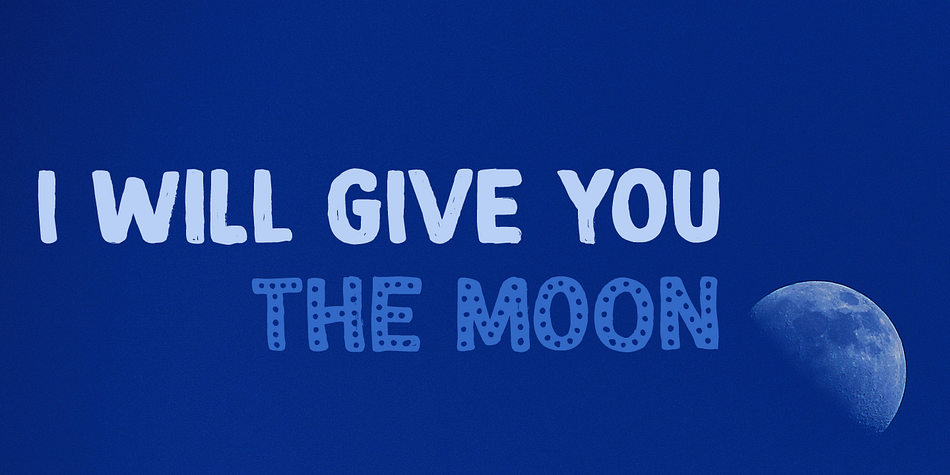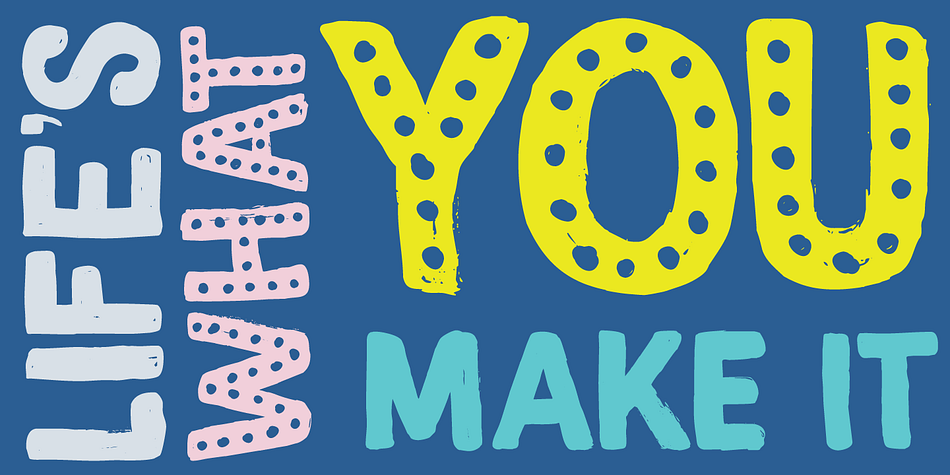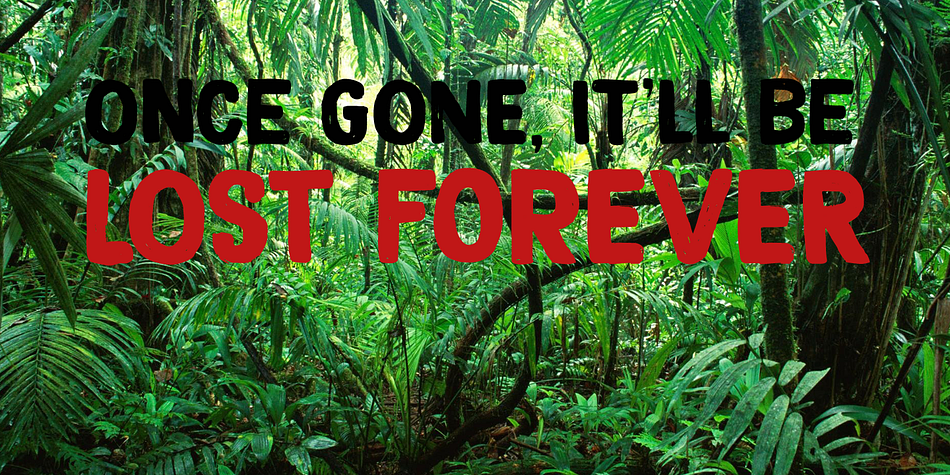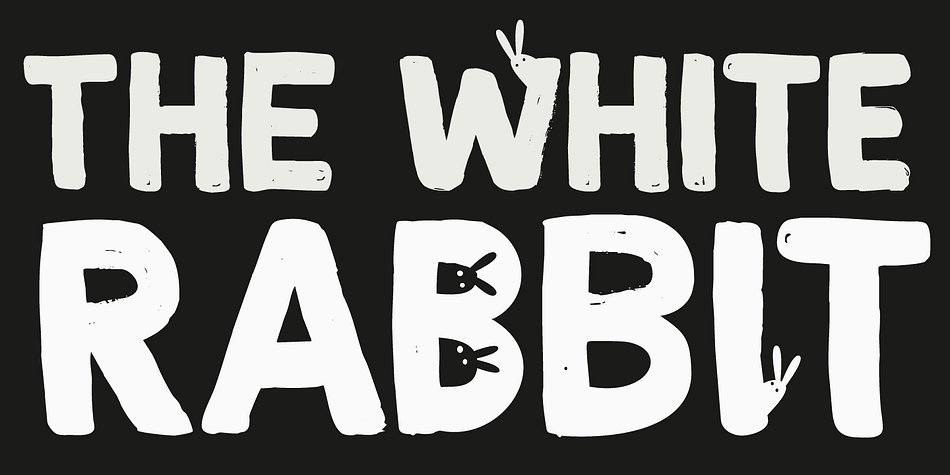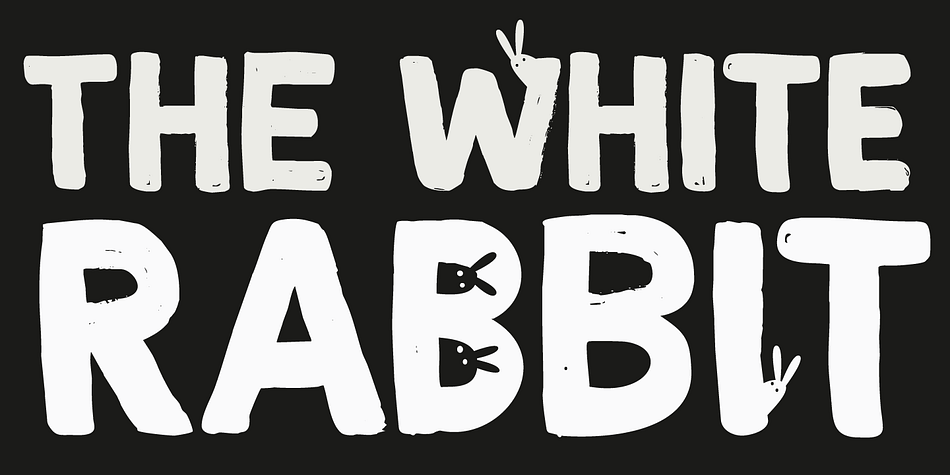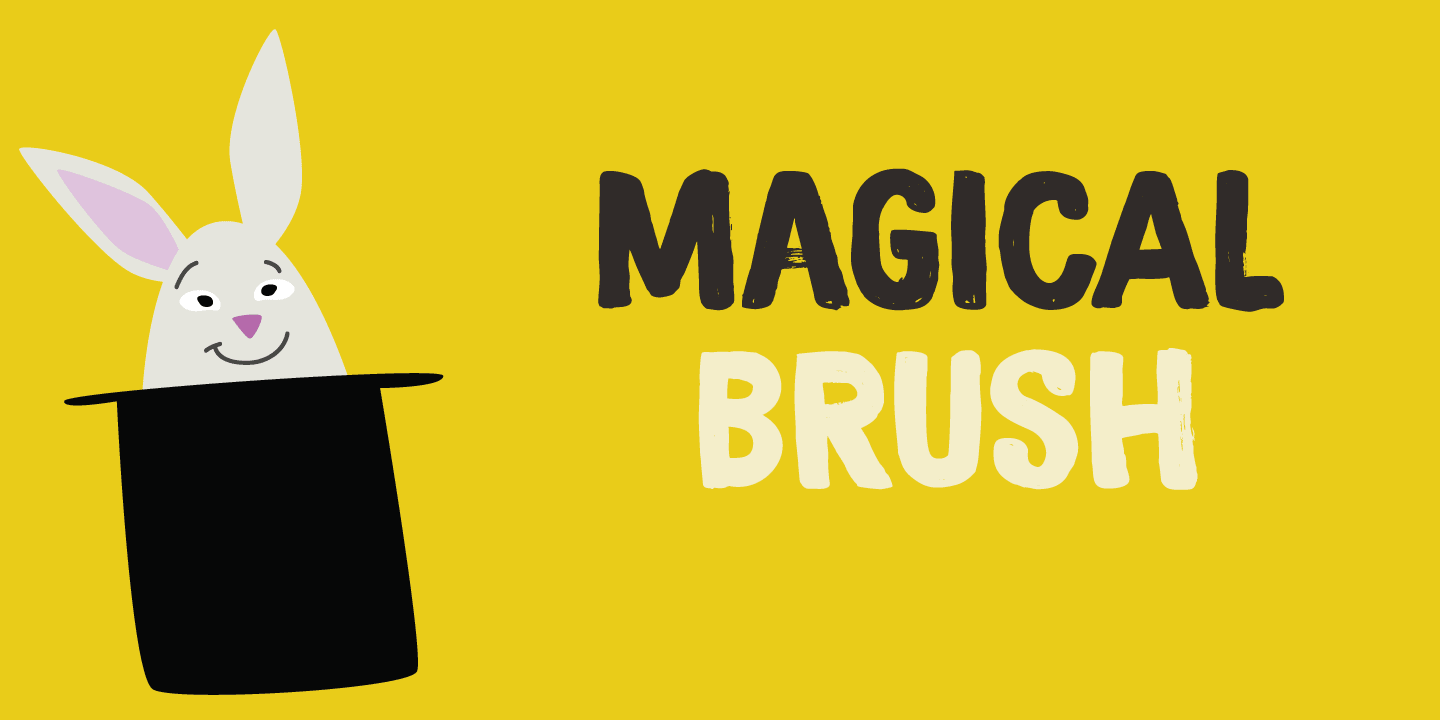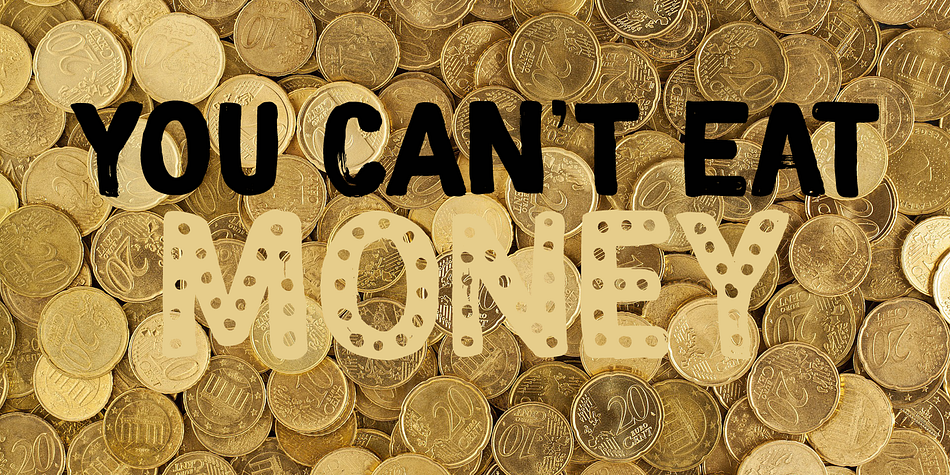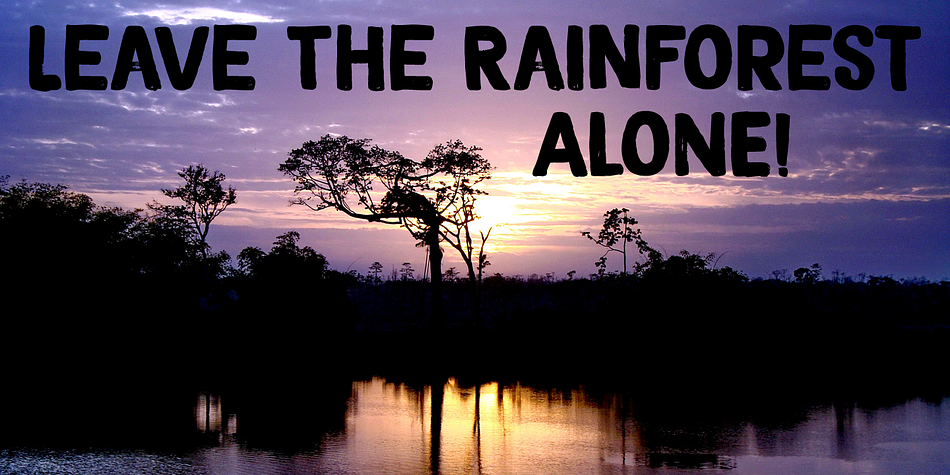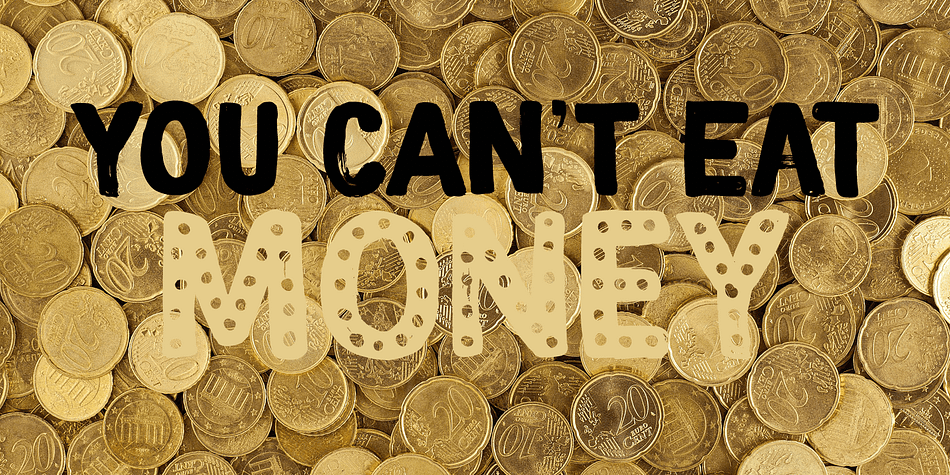
Designed by David Kerkhoff, Magical Brush is a hand display and brush display font family. This typeface has two styles and was published by Hanoded.
Personally I think a brush font should have the word ‘Brush’ in its name. It’s not that easy finding a name - you need some magic to come up with a good one!
Magical Brush is a completely handmade font. I used a small brush (a number 3 to be precise) and Chinese Ink. I wanted just a little ‘erosion’, so I used copier paper rather than my expensive French water color paper (which is quite rough). Magical Brush comes in the normal variant and a chickenpox one.
Use it for your posters, your book covers and your Christmas invitations!